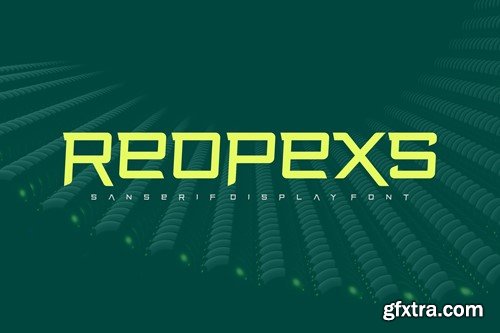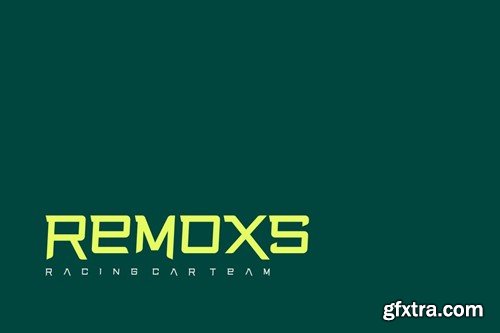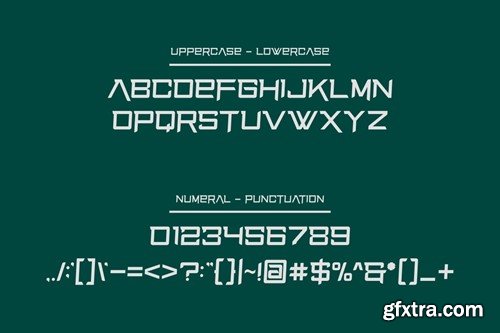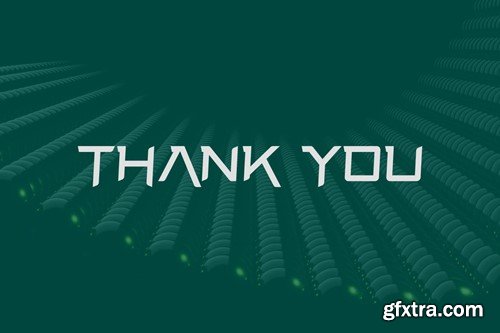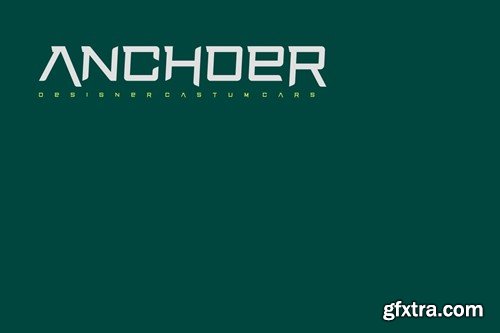
Reopexs Font
Introducing our new product Reopexs Font - Modern Font Reopexs Font- Modern Font is a bold and authentic display font. The font is suitable for any branding project like logo, t-shirt printing, esport, and many more. outstanding in a wide range of contexts. availlable